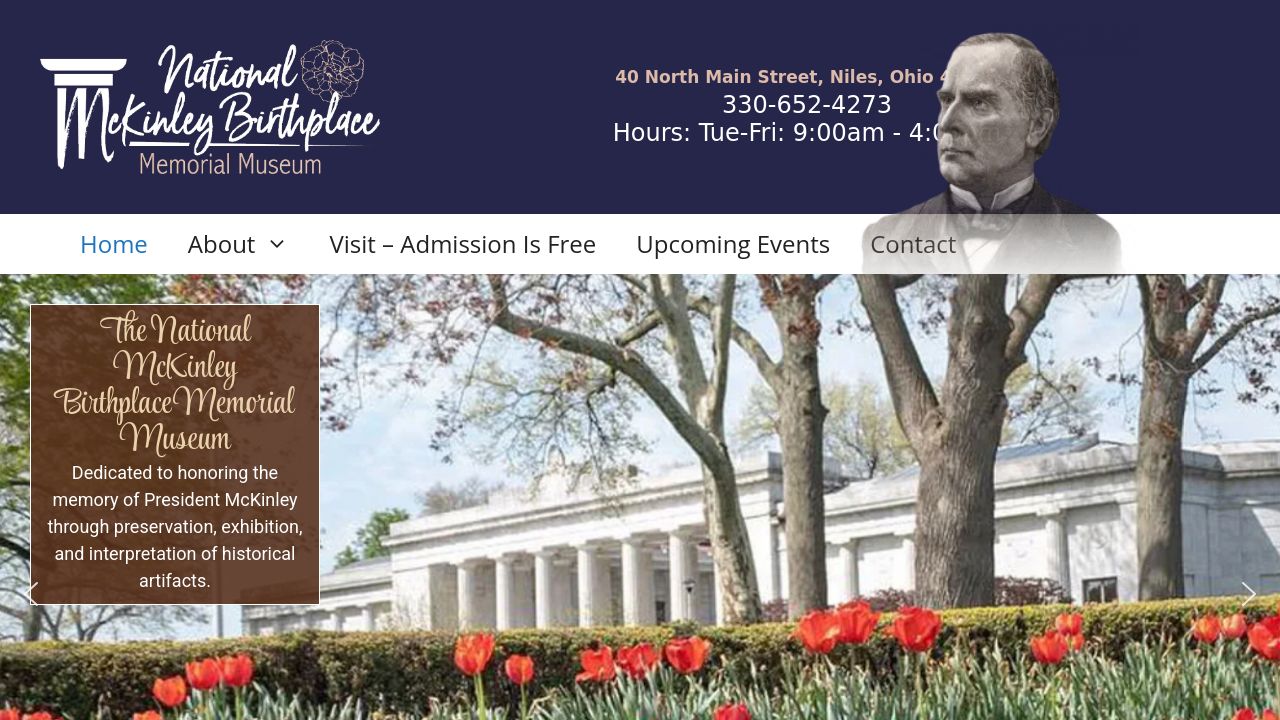
The National McKinley Birthplace Memorial Museum, found at mckinleybirthplacemuseum.org, showcases a unique blend of history and architecture. The use of primary fonts like Roboto and Open Sans reflects clarity and accessibility, making information easy to digest for visitors. Additionally, Cedarville Cursive and Style Script add a touch of individuality to the museum's branding, enhancing the overall visual identity while connecting to its rich heritage.
The primary fonts used on mckinleybirthplacemuseum.org include Roboto, Open Sans, Open Sans Condensed, Cedarville Cursive, and Style Script.
Roboto and Open Sans are widely appreciated for their legibility. Alternatives like Arial might not convey the same nuance and character as the custom fonts Cedarville Cursive and Style Script.
mckinleybirthplacemuseum.org primarily uses font weights of 300 for Roboto and Open Sans, while Cedarville Cursive and Style Script are used at weight 400 for added emphasis.